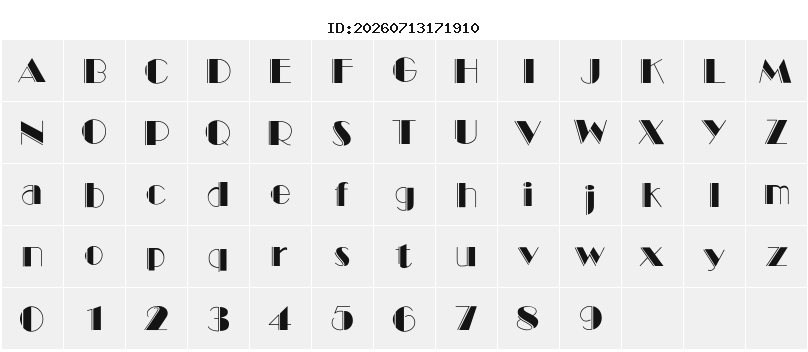
BalletEngraved Preview
• Font Name: BalletEngraved
• Full Font Name: BalletEngraved
• PostScript Name: BalletEngraved
About BalletEngraved.ttf
BalletEngraved.ttf is a modern, elegant sans-serif font designed for ultimate readability and visual harmony. Perfect for branding, headlines, web design, and print materials.